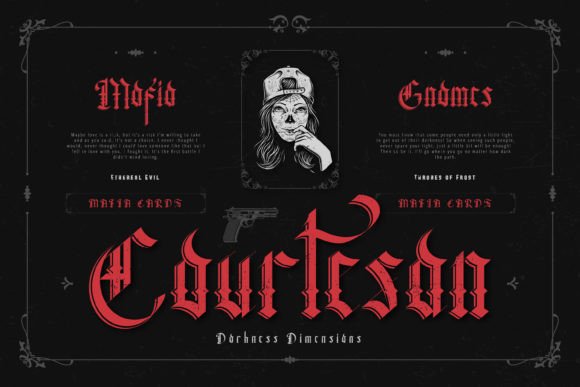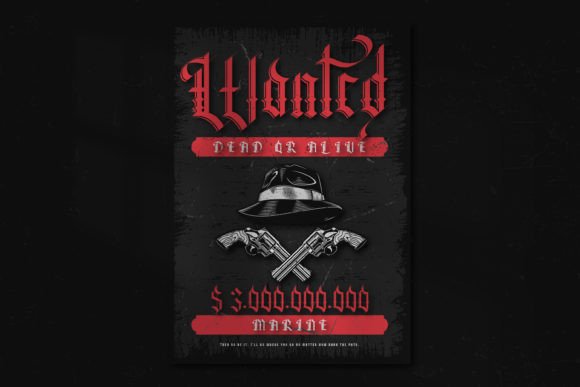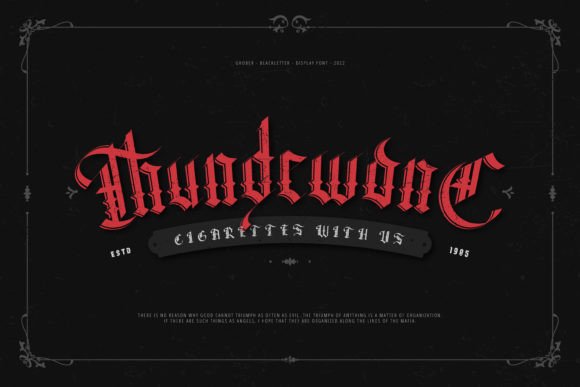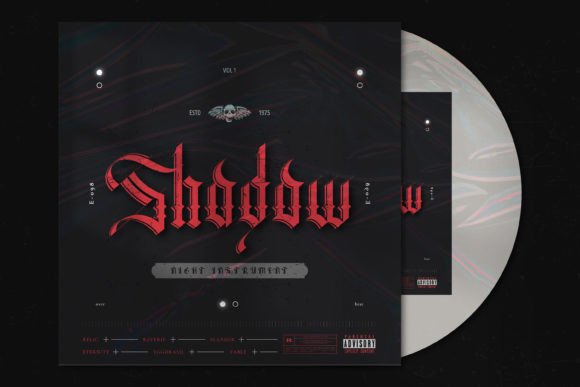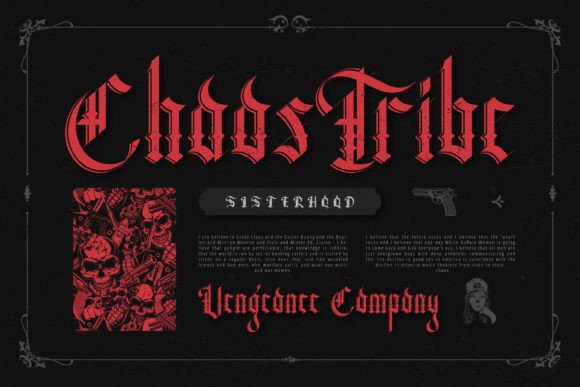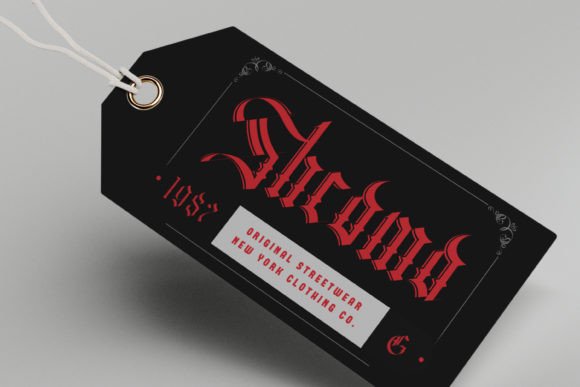
The Ultimate Guide to Ghober Font: Unleashing Bold and Daring Typography
I’ll never forget the time I was working on a product packaging project for a crafty client, and I was struggling to find the perfect font to convey their brand’s bold and edgy personality. That’s when I stumbled upon Ghober Font, a splendid blackletter font that instantly caught my attention. In this article, I’ll share my experience with Ghober, its features, and how to make the most of it in your designs.
An Honest Review of Ghober Font
So, what makes Ghober Font so special? Here are some things I love about it:
- ✨ Stylish features: Ghober boasts a range of stylish features that make it perfect for product packaging, branding, and other projects that need bold and daring typography.
- ✅ Bold and edgy: This font is not for the faint of heart! It’s perfect for designs that require a strong, attention-grabbing presence.
- 💯 Versatile: Despite its bold nature, Ghober can be used in a variety of contexts, from luxury brands to crafty, handmade products.
Of course, no font is perfect, and Ghober has a few quirks:
- 🤔 Limited legibility: As with many blackletter fonts, Ghober can be challenging to read at small sizes or in long blocks of text.
- ⚠️ Limited suitability for body text: Due to its bold and ornate nature, Ghober is best used for headlines, titles, or short phrases rather than body text.
The Backstory of Ghober Font
While the origins of Ghober Font are shrouded in mystery, it’s said to have been inspired by traditional European blackletter scripts. The font’s creator, a talented typographer, aimed to craft a bold and daring font that would evoke the sense of luxury and sophistication.
| Font Name | Ghober Font |
| Author | inferno.type3 |
| What is Ghober Font best used for? | Ghober Font is perfect for product packaging, branding, and other projects that require bold and daring typography. |
| Is Ghober Font suitable for body text? | No, Ghober Font is best used for headlines, titles, or short phrases rather than body text. |
| Is Ghober Font available in different weights or styles? | Yes, Ghober Font comes in a range of weights and styles, making it versatile for various design applications. |